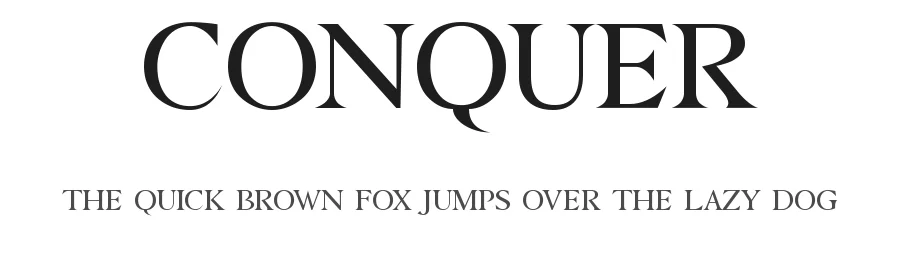
About Glorine Font
Glorine Specifications
| Font Family | Glorine |
| Full Name | Glorine |
| Glyph Count | 217 glyphs |
| PostScript Name | GlorineRegular |
| Designer | Toni Studio |
Glorine ships with 1 OpenType feature you can switch on in apps that support them (Illustrator, InDesign, Affinity, Figma, CSS font-feature-settings).
Glorine supports 211 languages.
Glorine Font is a versatile serif font that works for both headings and body text. Pair it with a contrasting sans-serif or slab serif font to add visual interest and a clear distinction between titles and body copy.
Glorine Font
by ToniStudio